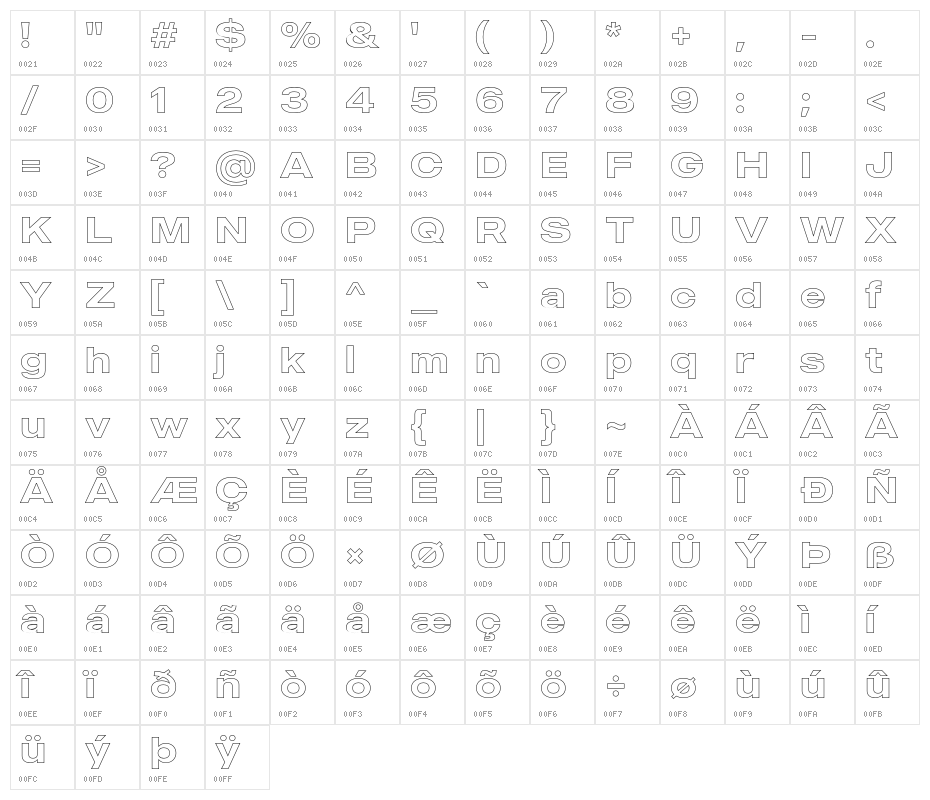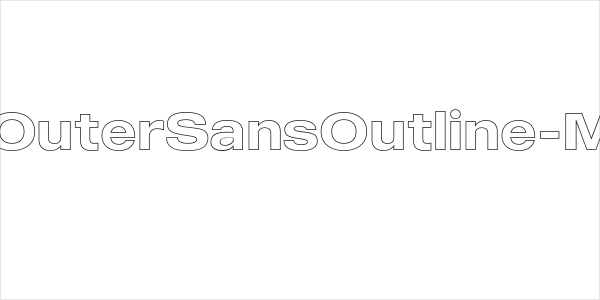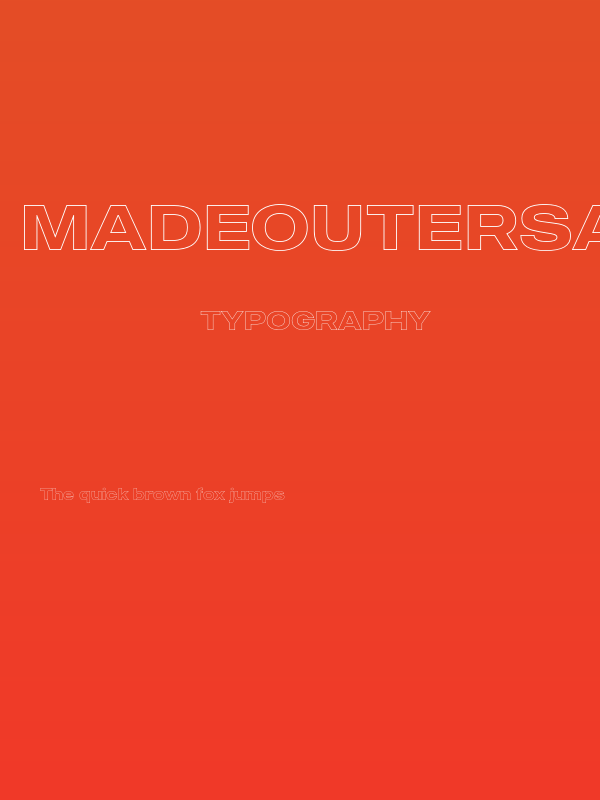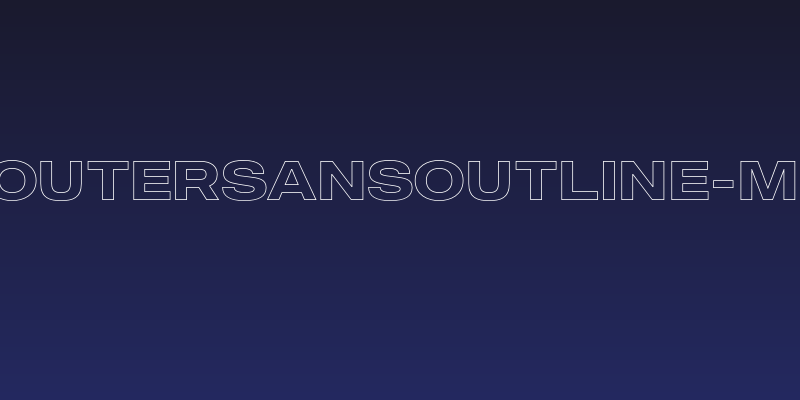
MADEOuterSansOutline-Medium Font
MADEOuterSansOutline-Medium Description
This font features a clean, modern sans-serif style with an outline design that gives it a unique and striking appearance. The characters are evenly spaced and maintain a consistent height, contributing to a balanced and harmonious look. The uppercase and lowercase letters are well-proportioned, and the numerals are clear and easy to read. The special characters are distinct and maintain the same outline style, ensuring uniformity across all glyphs. This font's outline design adds a layer of sophistication, making it suitable for various creative applications.
| Proposed Projects | Ideal for branding, headlines, posters, and digital artwork where a modern and distinctive look is desired. |